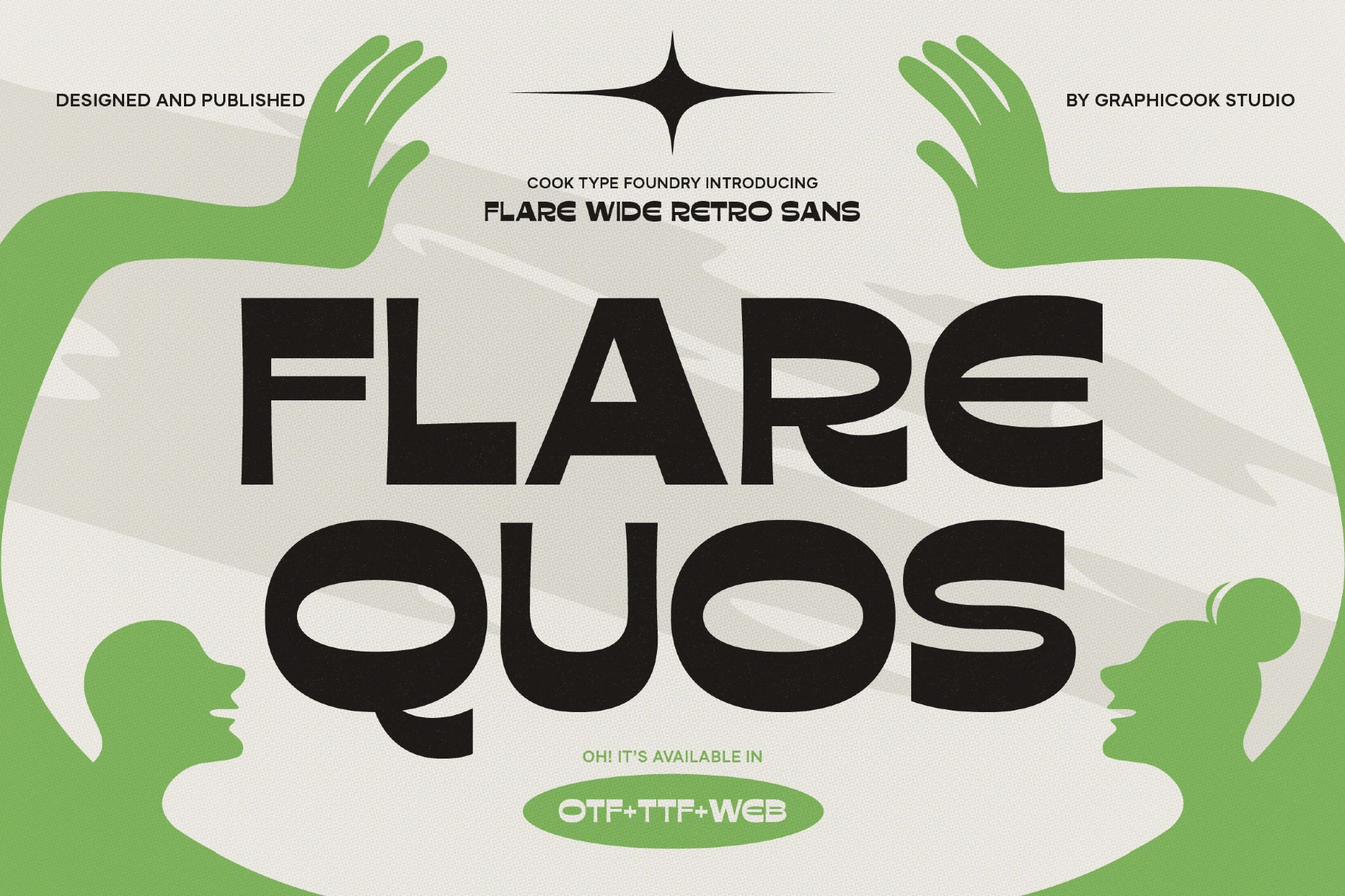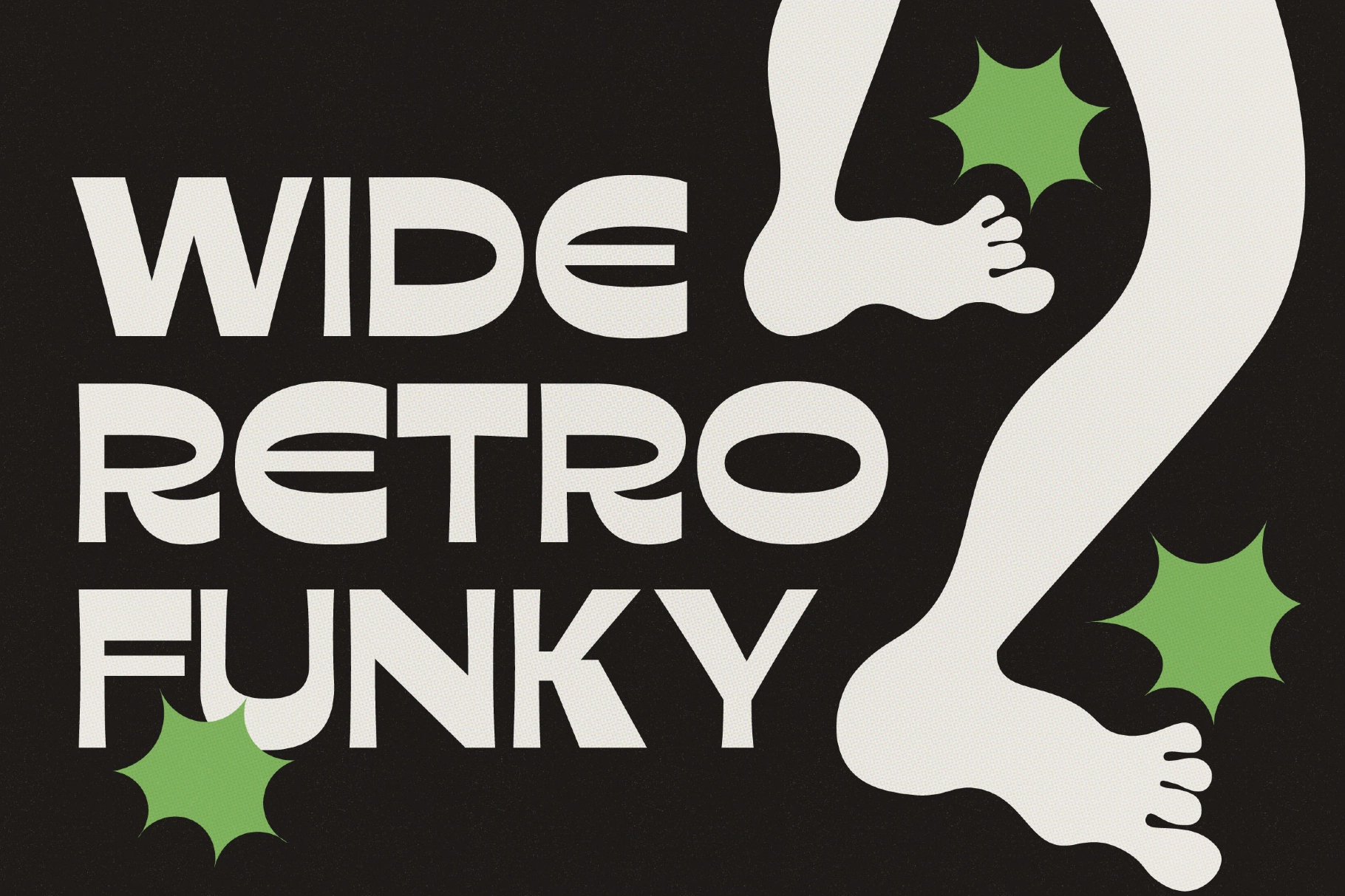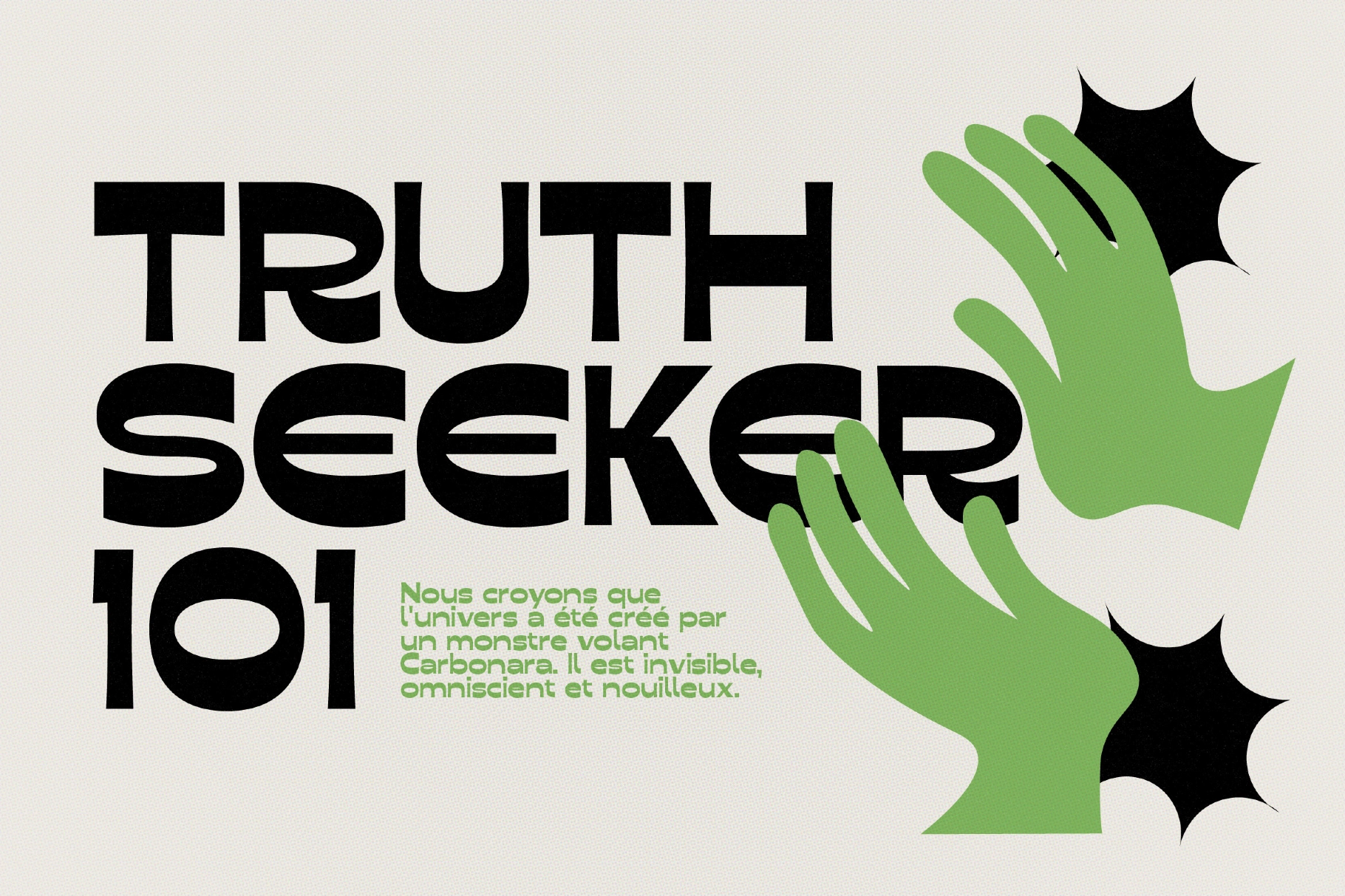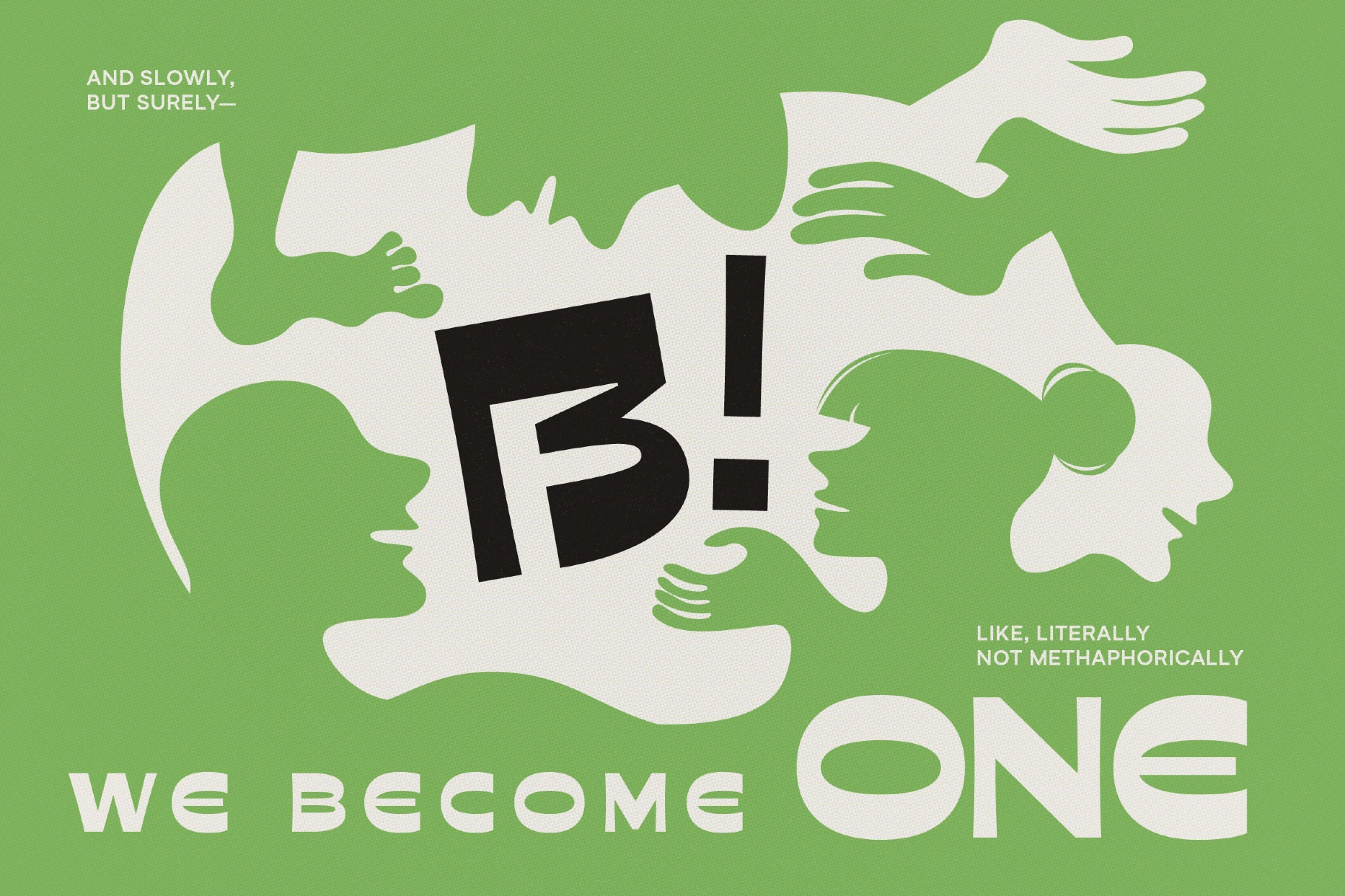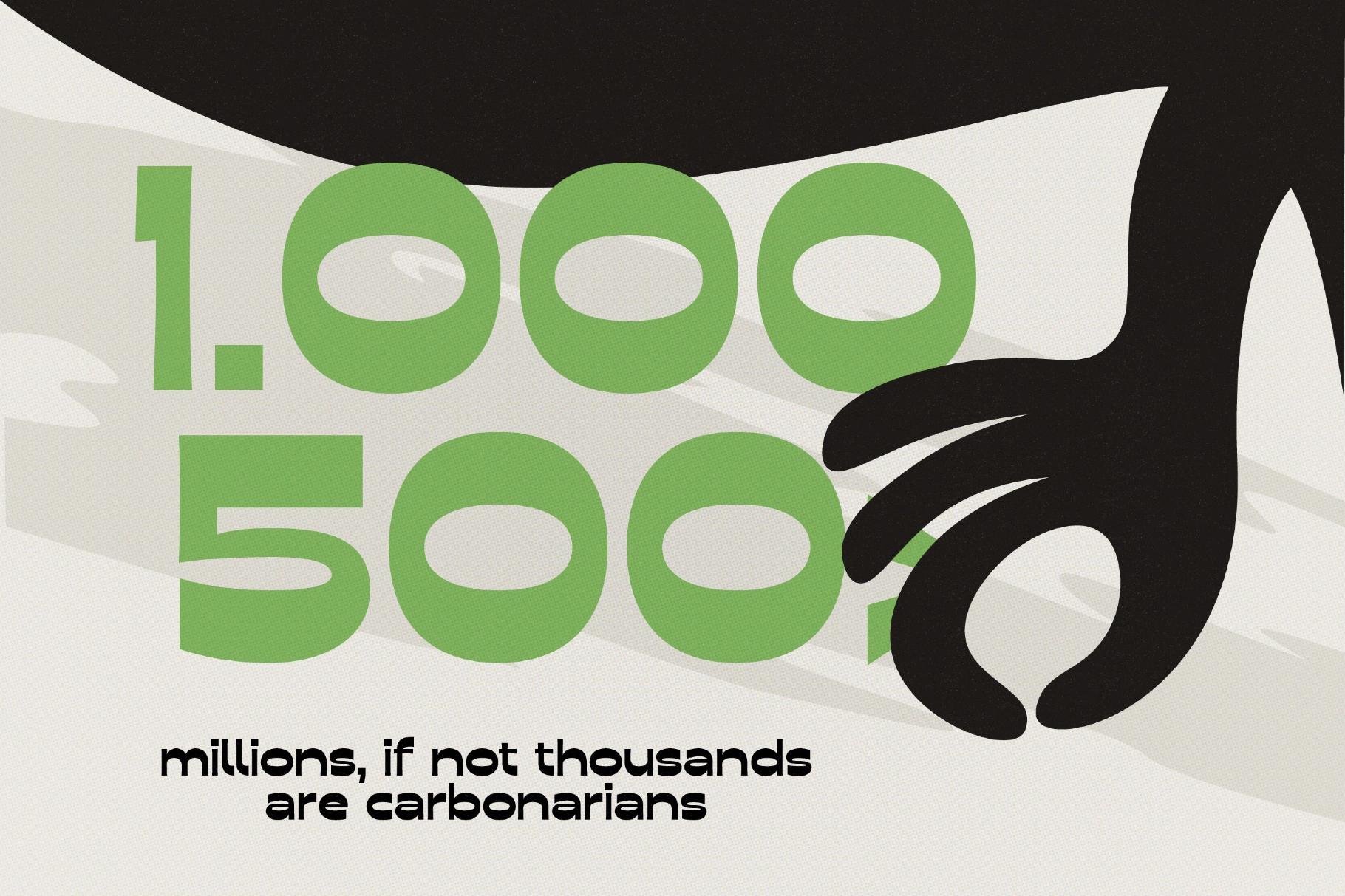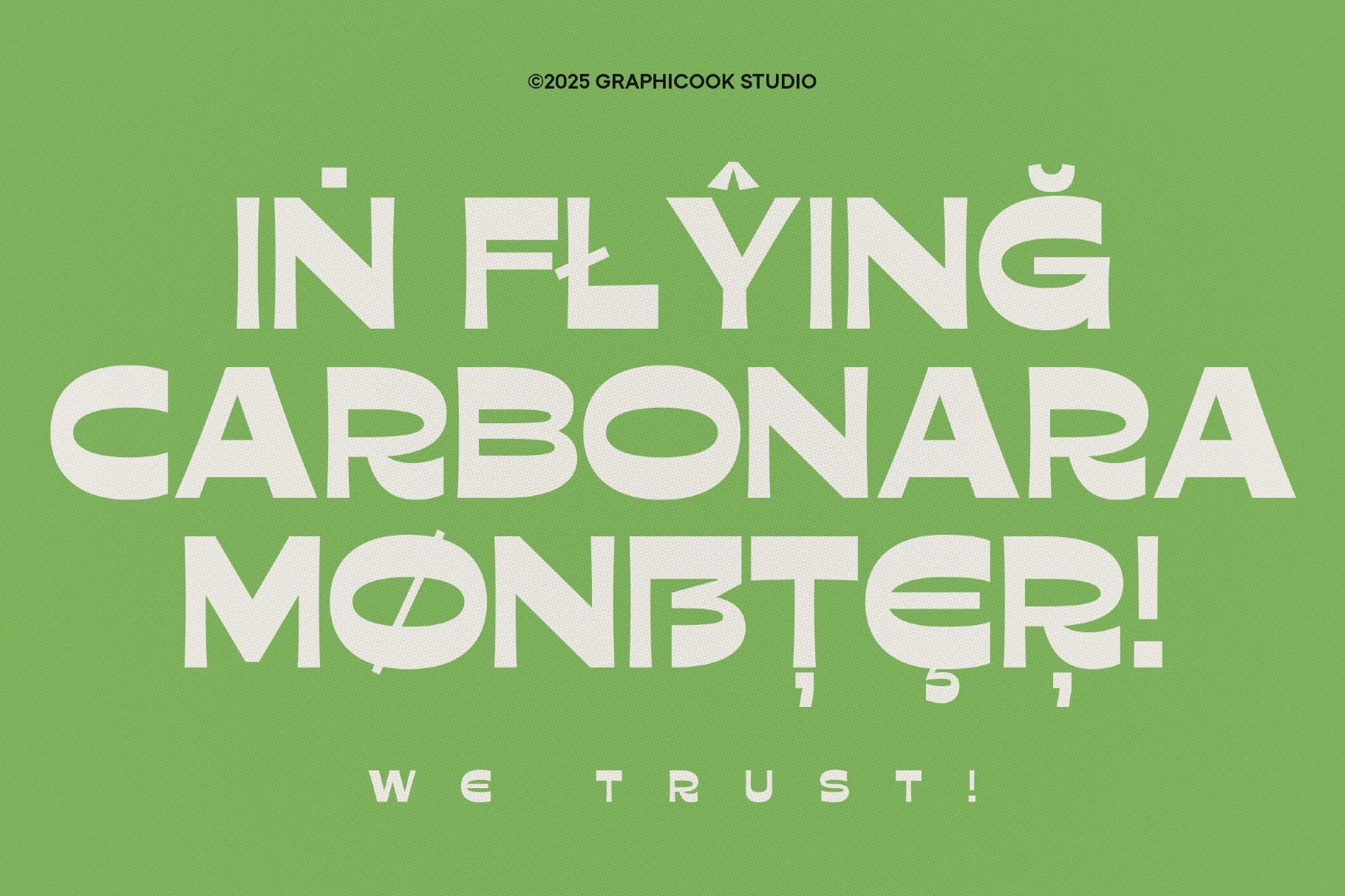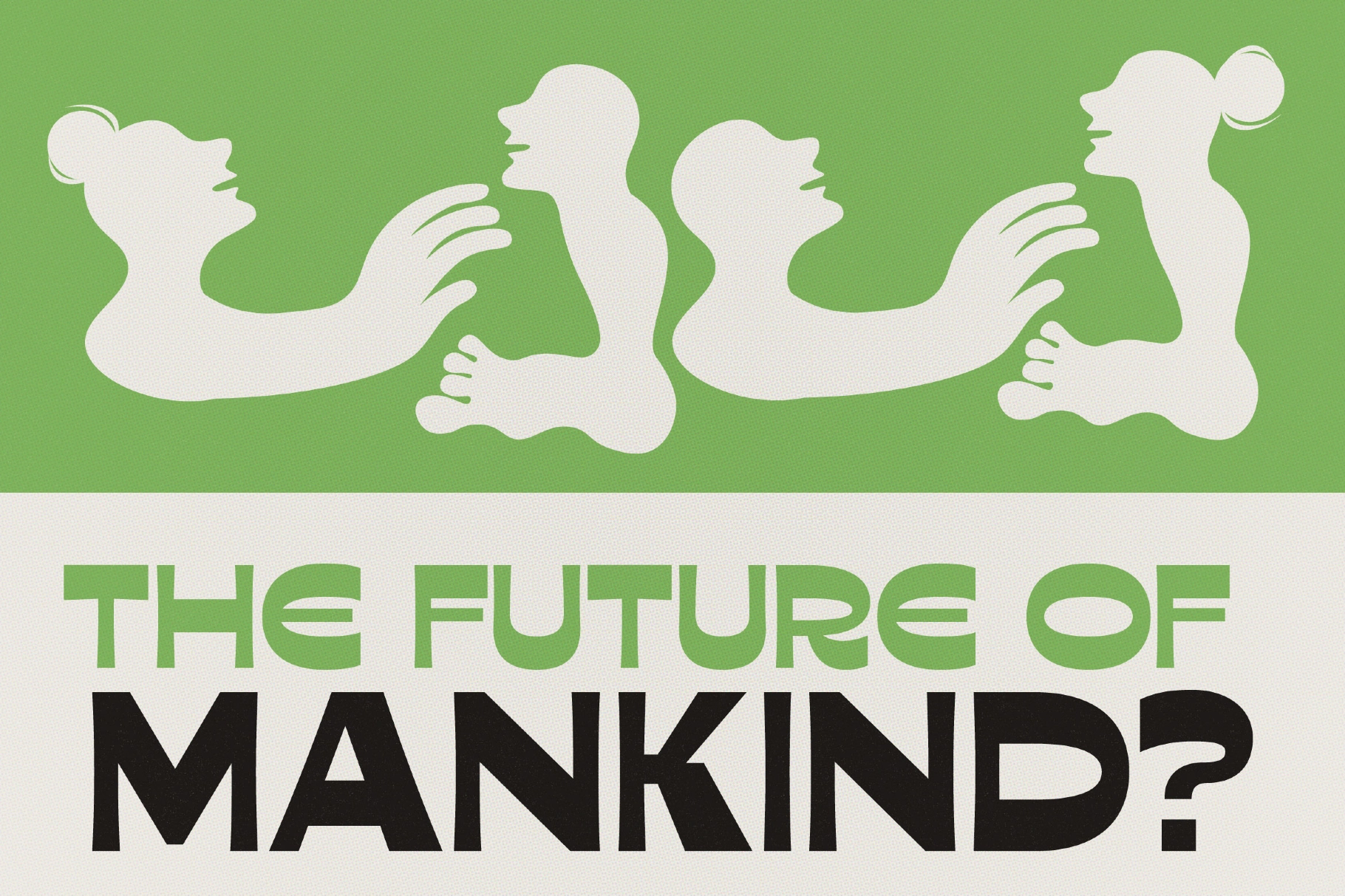
Flarequos Font
Flarequos is an experimental font with wide, uniquely shaped letters and a retro funky vibe. Ideal for headlines and designs that channel energetic, playful, and vintage moods.